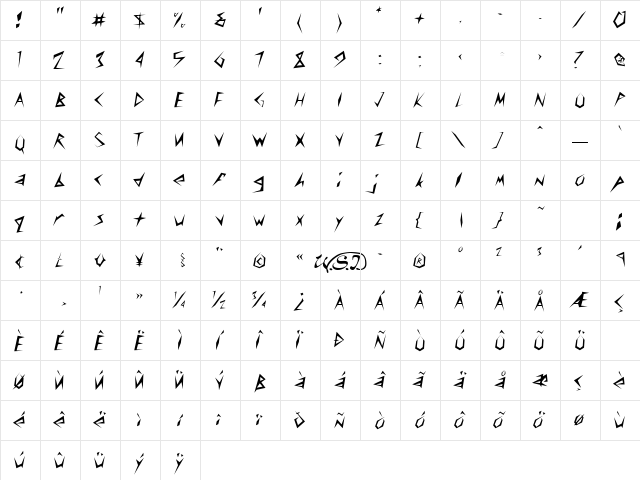
Stinger Light Regular
Design Context for Stinger Light Typeface
Stinger Light is a composed and adaptable typeface that performs quietly and consistently across a wide range of design contexts. The delicate stroke weight brings airiness and refinement to layouts.